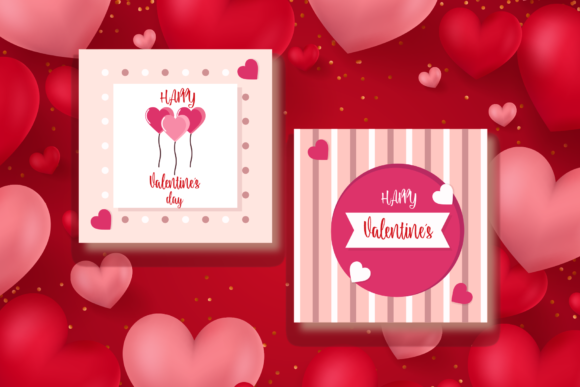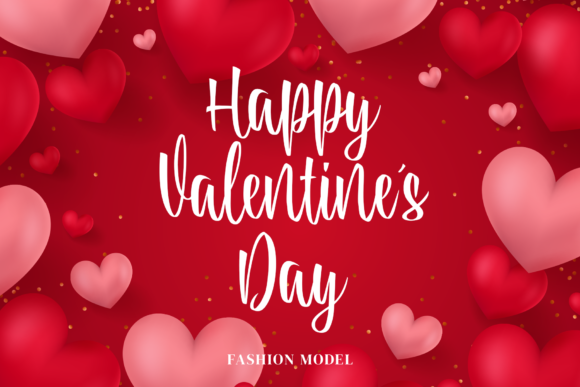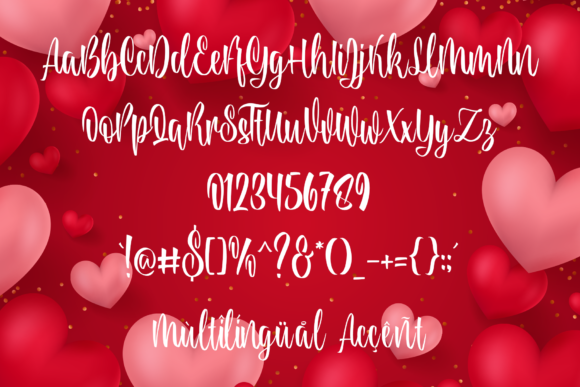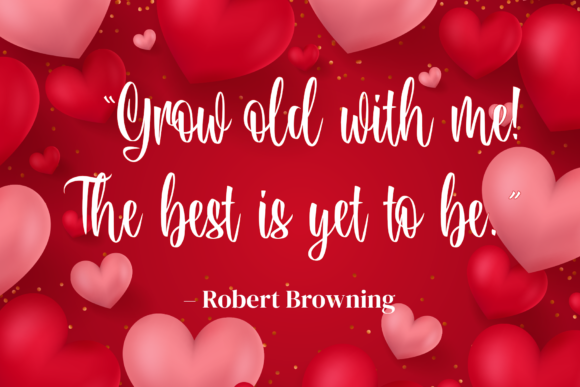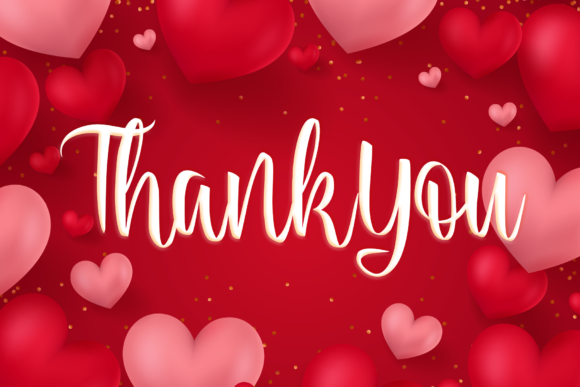
The Perfect Script for Your Next Design Masterpiece
Have you ever sat in front of a blank canvas, searching for the perfect script to bring your vision to life? The feeling of excitement and anticipation as you start to explore different fonts is exhilarating, isn’t it? And then, you stumble upon it – the one that makes your design pop. For many designers, this moment is pure magic.
That’s where the Alesyana Font comes in. This beautiful and delicate handwritten font is designed to add a touch of luxury to any design project. With its unique feel and stunning impact, it’s the perfect addition to elevate your work. Whether you’re creating a wedding invitation, a product label, or a logo, Alesyana Font will bring an undeniable charm to your design.
As a designer, you know the importance of choosing the right font to convey your message. That’s why Alesyana Font is a valuable addition to your toolkit. Its versatility and sophistication make it a go-to choice for designers who want to create something truly special.
Alesyana Font Key Features
- Font Family: Alesyana Font is a beautiful, modern script font with a unique, elegant feel.
- Unique Characteristics: Alesyana Font features flowing connections, swashes, and subtle flair, making it ideal for creating beautiful, handwritten-style designs.
Alesyana Font Review
Overall, I have mixed feelings about the Alesyana font. Let’s dive into what works well and what doesn’t.
- Elegant Script: Alesyana font is perfect for those looking for an elegant script font. It adds a touch of sophistication to any design.
- Calligraphy-inspired: The font’s calligraphy-inspired design makes it suitable for formal invitations, wedding cards, or other special occasions.
- Not suitable for body text: Due to its ornate design, Alesyana font may not be the best choice for body text, as it can be difficult to read.
- May not work well on small screens: The font’s intricate design may not display well on small screens or devices with low resolution.
Alesyana font is a beautiful script font that shines in formal and special occasion designs. However, its limitations make it less suitable for everyday use or body text. If you’re looking for an elegant script font for a specific project, Alesyana might be a great choice, but consider its limitations before making a final decision.
The Alesyana font is ideal for:
- Special occasion graphics and designs
Tips for Getting the Most Out of Alesyana Font
To get the most out of Alesyana font, try:
- Pairing it with bold and italic styles for added emphasis.
- Using it in combination with other elegant fonts for a sophisticated look.
- Experimenting with different font sizes and colors to create visual interest.
Great Vibes is a beautiful, elegant script font that is perfect for creating a sense of luxury and sophistication. It is ideal for use in wedding invitations, branding, and packaging design. Compared to Alesyana Font, Great Vibes has a more refined and cursive feel, making it suitable for high-end designs.
Carolyna Pro is a modern script font that is great for creating a sense of elegance and sophistication. It is perfect for use in branding, advertising, and editorial design. Compared to Alesyana Font, Carolyna Pro has a more contemporary feel and a wider range of styles, making it suitable for a variety of design applications.
Pacifico is a beautiful, cursive script font that is perfect for creating a sense of relaxation and calmness. It is ideal for use in travel, food, and wellness branding, as well as packaging design. Compared to Alesyana Font, Pacifico has a more laid-back and casual feel, making it suitable for designs that require a sense of warmth and approachability.